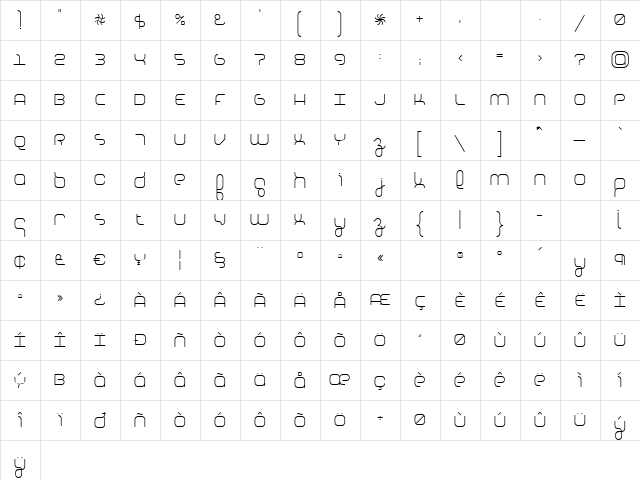
BasixRegular Regular
Design Context for BasixRegular Typeface
BasixRegular takes a measured approach to typography — its balanced proportions and neutral character make it a reliable workhorse for both digital and print work.